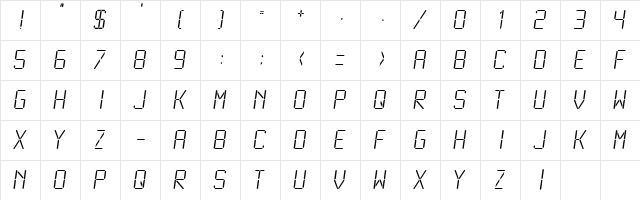
LCDMono2 Light Free Font
LCDMono2 Light
LCDMono2 Family
Design Context for LCDMono2
LCDMono2 uses fixed-width spacing throughout, giving it the structured, systematic character associated with coding environments and technical documentation. Its slender proportions lend an understated elegance to any composition.